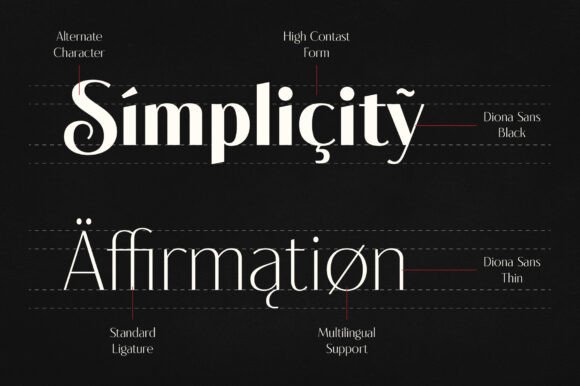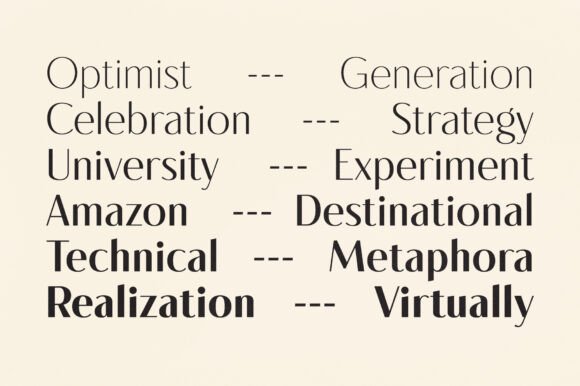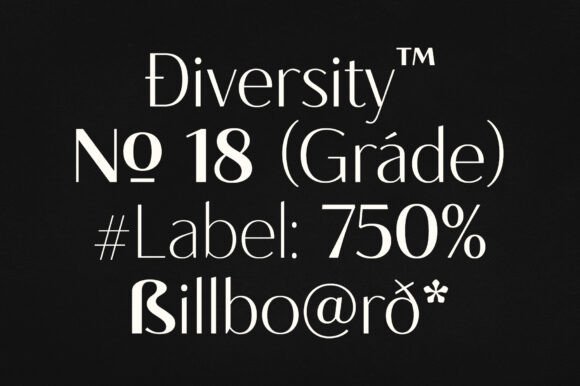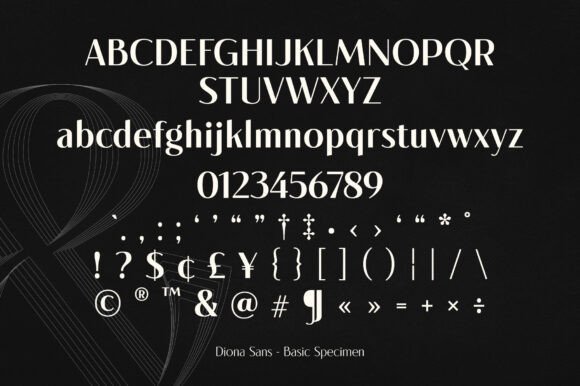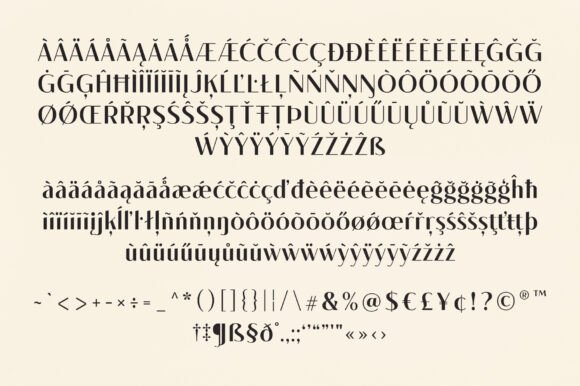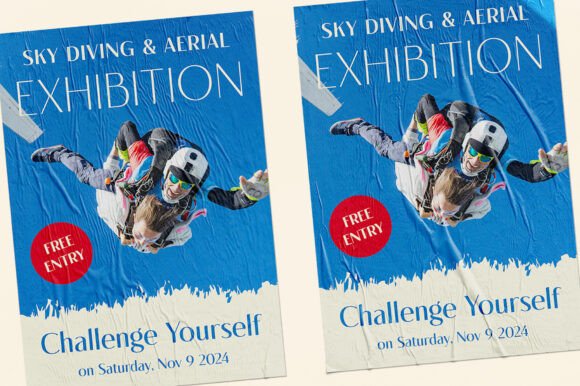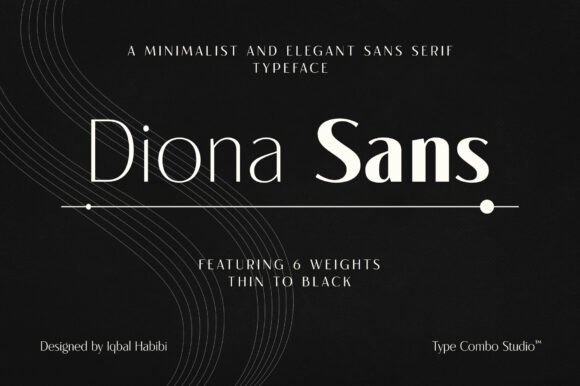
Diona Sans Font: A Clean and Elegant Minimalist Typeface
In the world of typography, a good font can make all the difference in the visual impact of a design. For designers and crafters looking for a clean and elegant sans serif display typeface, Diona Sans is an excellent choice. This modern font features a minimalist aesthetic, elegant alternate characters, and standard ligatures, making it perfect for a wide range of applications.
Key Features of Diona Sans
Diona Sans is a versatile typeface that offers a range of features that make it ideal for large-scale texts and display applications. Some of its key features include:
- 6 Weights: Diona Sans comes in six weights: thin, light, regular, medium, bold, and black, allowing designers to choose the perfect weight for their design.
- Extended Latin Characters: The font supports over 75 languages, making it a great choice for designers working on international projects.
- Elegant Alternate Characters: Diona Sans features elegant alternate characters that can add a touch of sophistication to any design.
- Standard Ligatures: The font also includes standard ligatures, which can help to create a more cohesive and polished look.
Perfect for Large-Scale Texts and Display Applications
The high contrast form of Diona Sans makes it perfect for large-scale texts such as headlines, logotypes, posters, banners, magazine covers, and any editorial or display applications. The font’s clean and minimalist aesthetic ensures that it will not distract from the content, while its elegant alternate characters and standard ligatures add a touch of sophistication.
Using Diona Sans: Tips and Tricks
- Experiment with Alternate Characters: Diona Sans’s elegant alternate characters can add a touch of sophistication to any design. Experiment with different alternates to find the one that works best for your project.
- Use Ligatures to Create a Polished Look: The standard ligatures in Diona Sans can help to create a more cohesive and polished look. Use them to connect words and create a sense of flow.
- Choose the Right Weight: With six weights to choose from, it’s essential to select the right weight for your design. Use a lighter weight for body text and a heavier weight for headlines.
Design Applications for Diona Sans
Diona Sans is a versatile typeface that can be used in a wide range of design applications, including:
- Headlines and Logotypes: The font’s high contrast form and elegant alternate characters make it perfect for headlines and logotypes.
- Posters and Banners: Diona Sans’s clean and minimalist aesthetic makes it ideal for posters and banners.
- Magazine Covers: The font’s sophisticated look makes it perfect for magazine covers and editorial design.
- Display Applications: Diona Sans can be used in a wide range of display applications, including signage, packaging, and web design.
| Author | Iqbal Habibi |
Diona Sans is a clean and elegant minimalist sans serif display typeface that is perfect for designers and crafters looking for a versatile and sophisticated font. With its six weights, extended Latin characters, elegant alternate characters, and standard ligatures, Diona Sans is ideal for large-scale texts and display applications. By following the tips and tricks outlined above, designers can get the most out of Diona Sans and create stunning designs that showcase the font’s unique features.